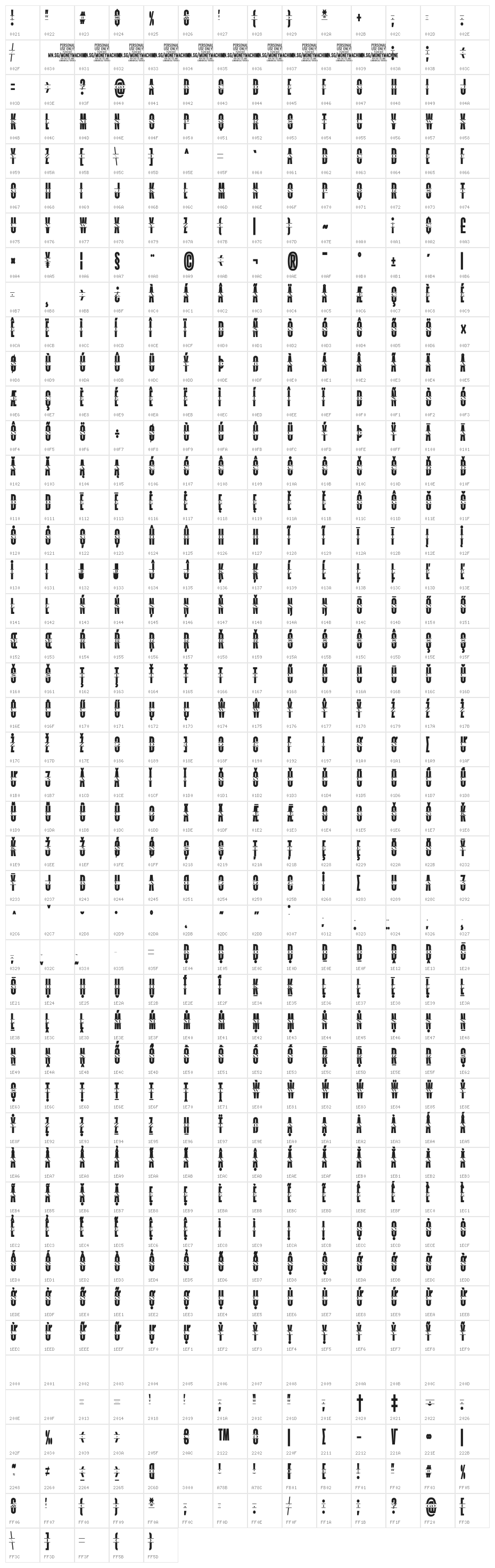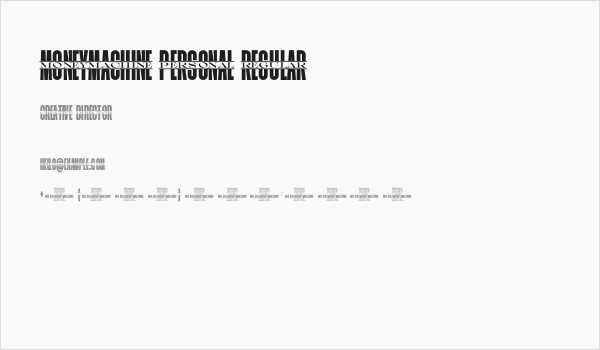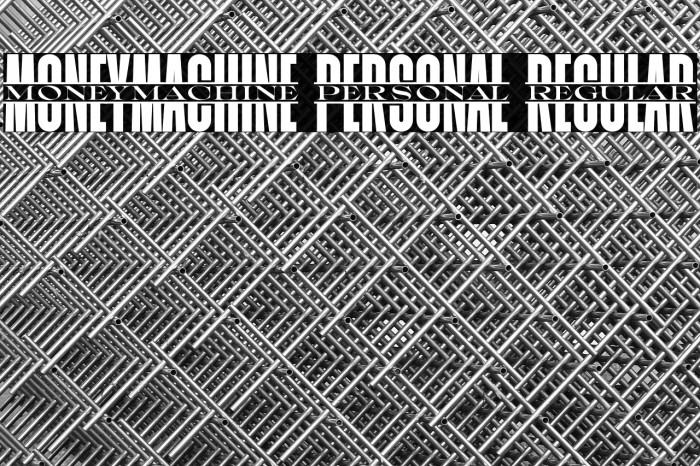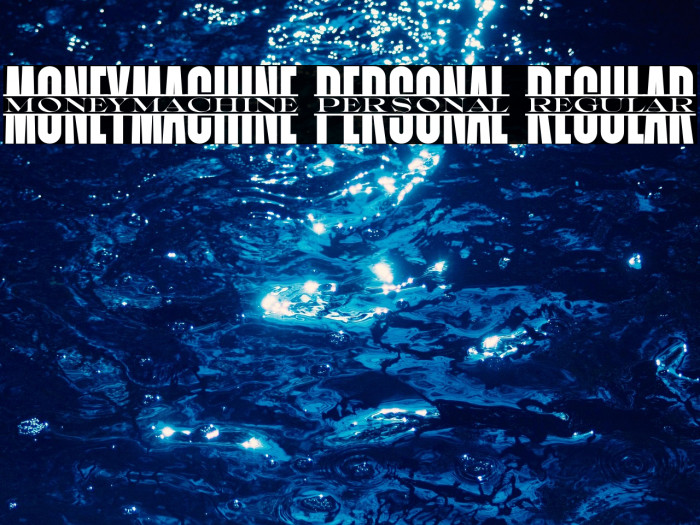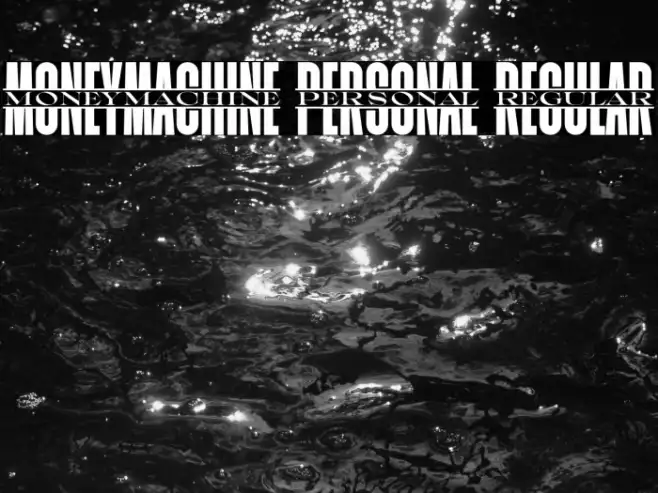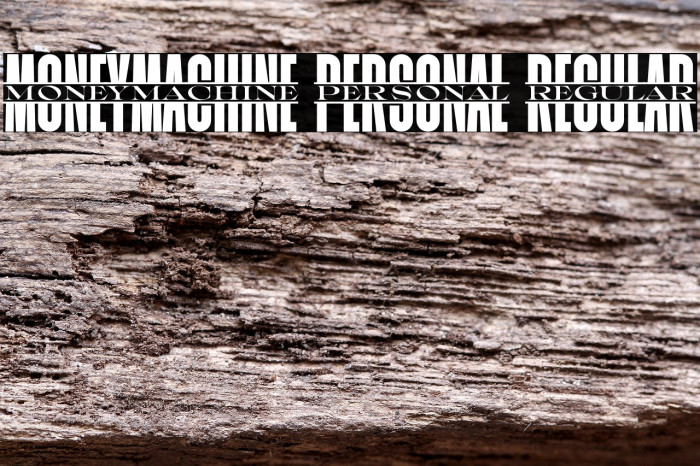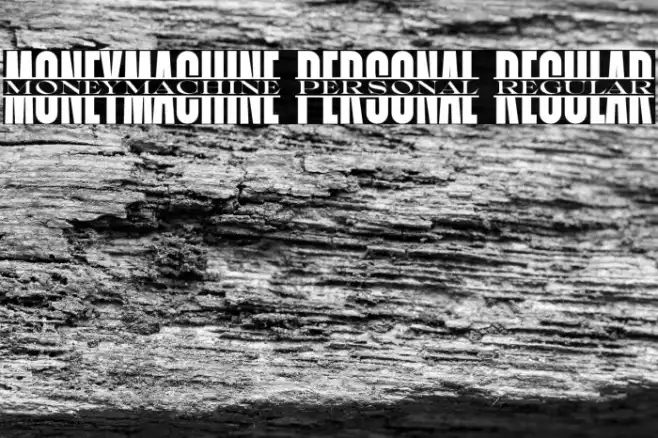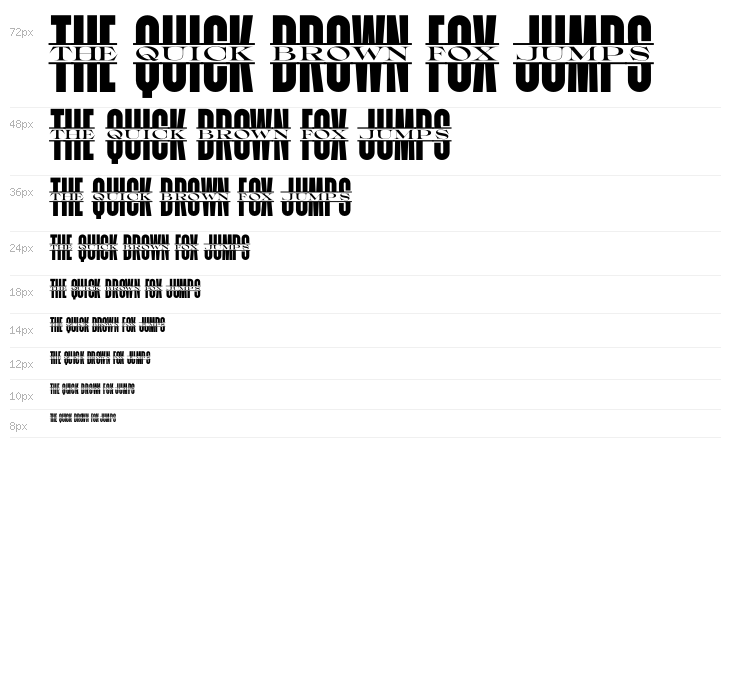
Moneymachine PERSONAL Regular Font
Moneymachine PERSONAL Regular Description
This font features a bold and impactful design, characterized by thick, heavy strokes that create a strong visual presence. The uppercase letters are particularly prominent, with a condensed width that enhances their boldness. The lowercase letters maintain the same weight, ensuring consistency across the typeface. Special characters are designed with the same boldness, making them stand out effectively. The font's style is modern and assertive, suitable for making statements in design projects. Its high contrast in stroke thickness adds to its striking appearance, making it ideal for attention-grabbing headlines or logos.